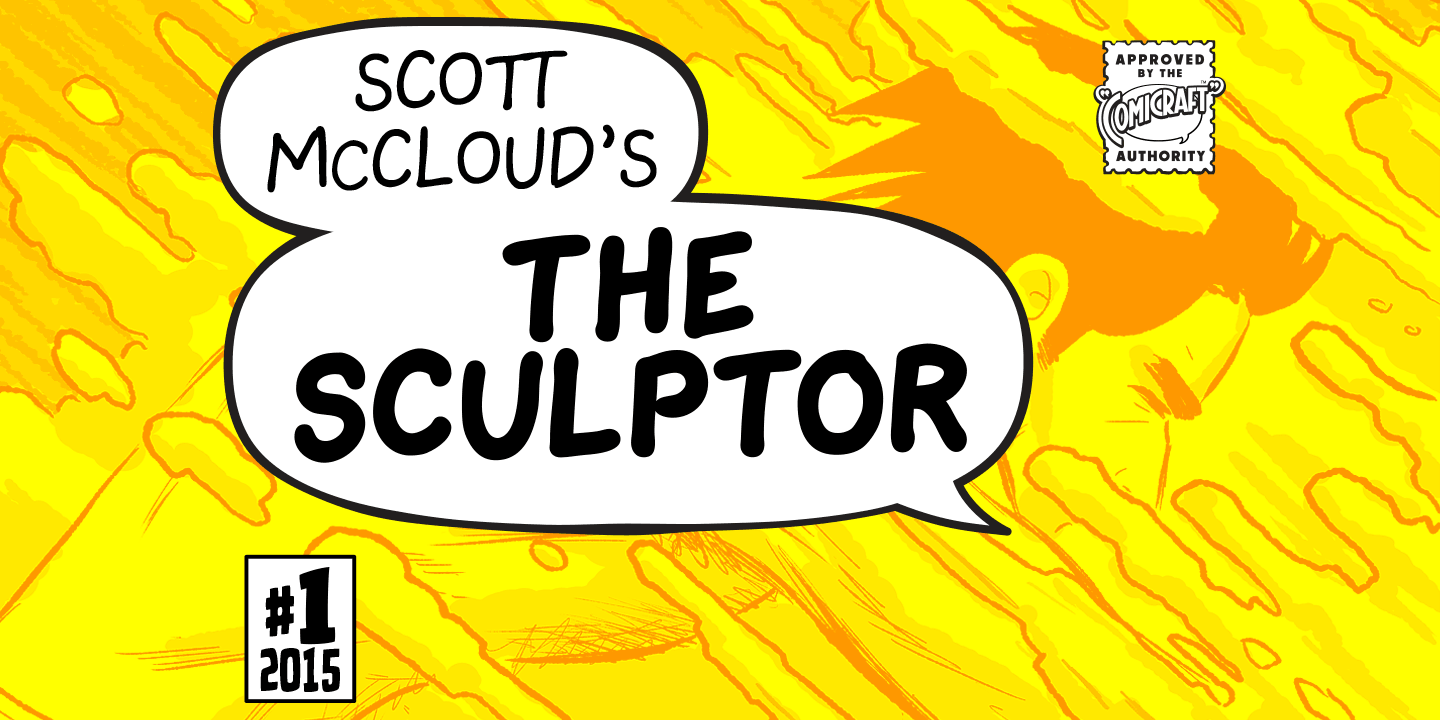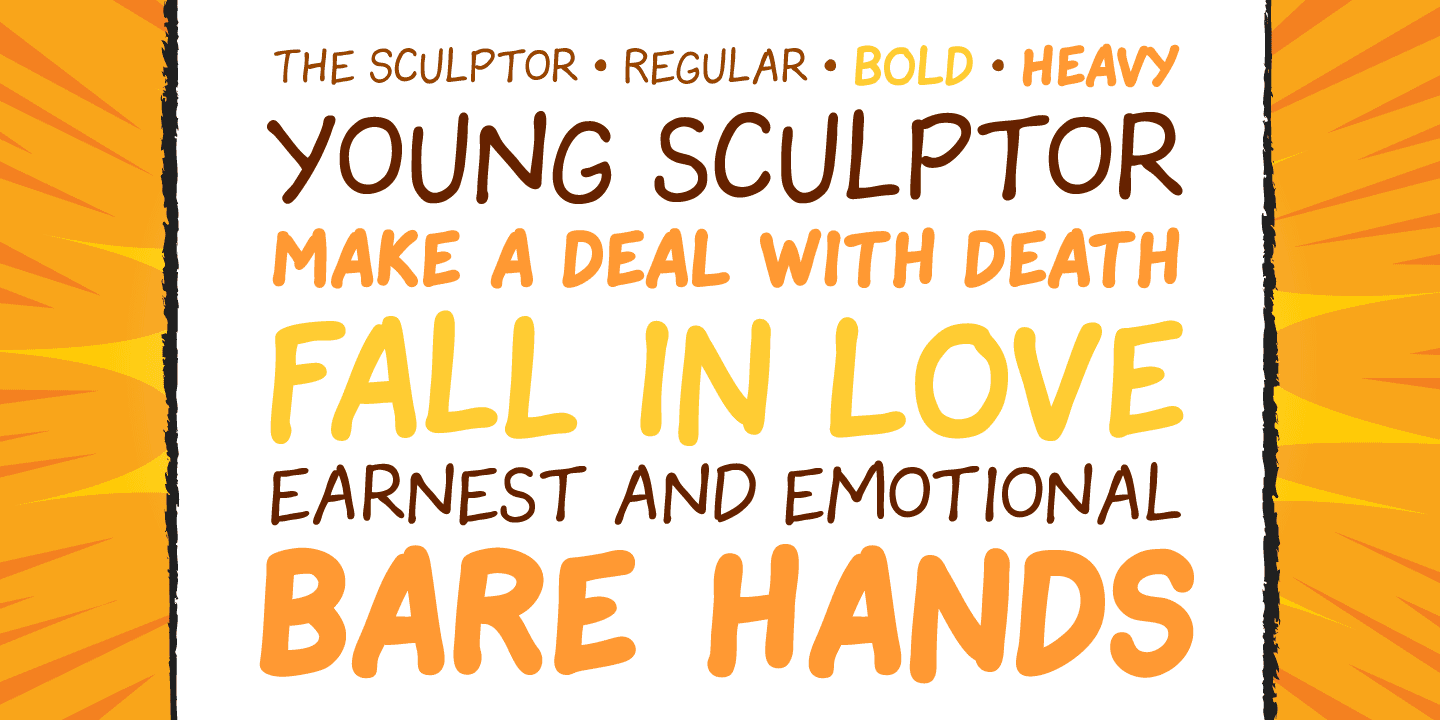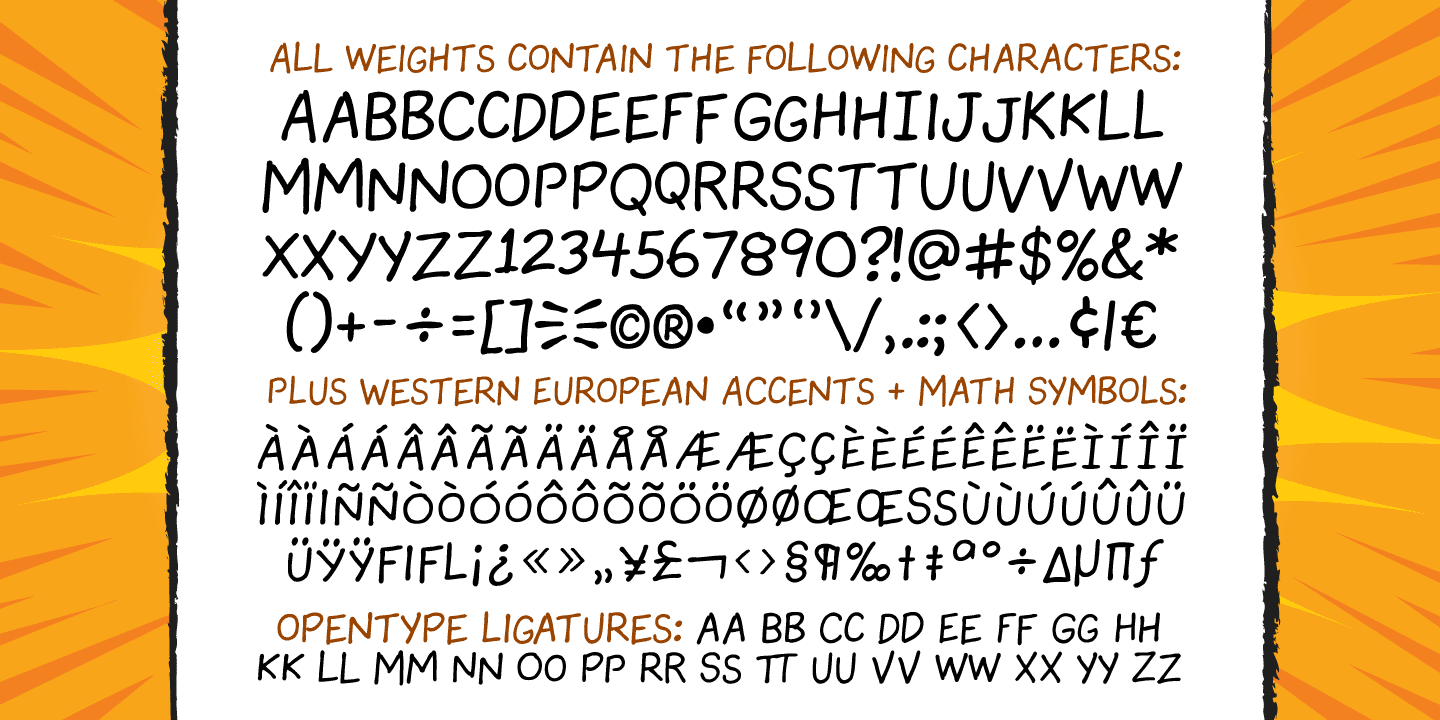
The Sculptor
Font Family by Comicraft Fonts
In much the same way that the leading character in Scott McCloud's first full-length graphic novel has given his life to art, Comicraft's John 'JG' Roshell has given HIS life to sculpt a unique font to suit it. Well, not his LIFE, but at least a couple of days. However, unlike the eponymous hero of THE SCULPTOR, you don't have to make a deal with Death to get your own copy of The Sculptor font! You too can letter anything with your bare hands! And a keyboard. And a computer. And some operating programs and software, obvs. Because creating anything is always going to be harder than you think, especially when you have only 200 days to live. Not you, The Sculptor. In all good bookstores now!